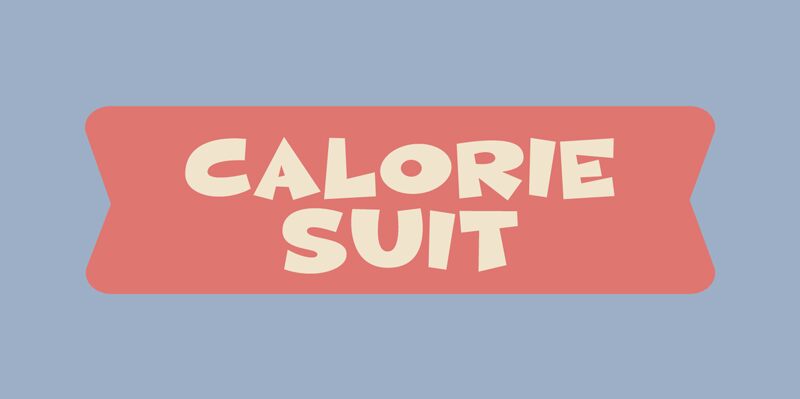
Calorie Suit, the extra-bold and expanded display font by Pizzadude, is here to add a playful touch to your projects. Its comic style and boldness make it perfect for eye-catching headlines, logos, and posters that demand attention. Whether you're creating a fun-filled children's book, designing an energetic fitness brand, or crafting vibrant packaging for delicious treats, Calorie Suit guarantees to bring a dash of joy and excitement. This versatile font is a surefire way to infuse your designs with personality and make them stand out from the crowd.